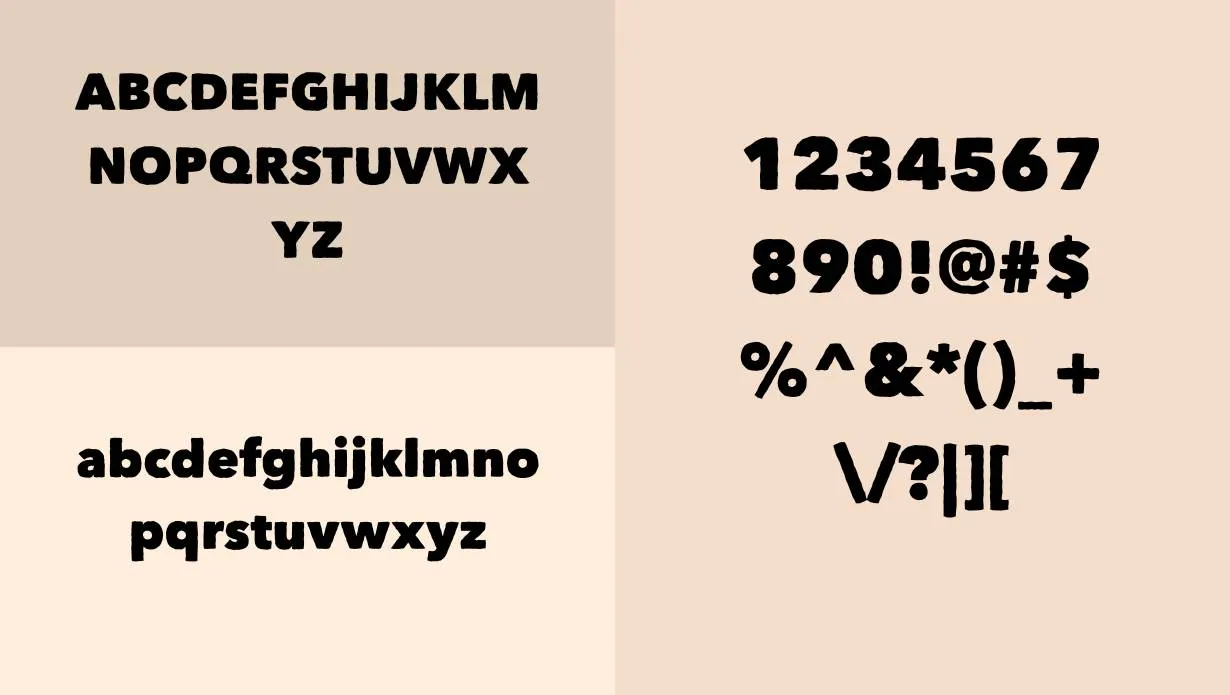
Matiz Font is a contemporary and versatile sans-serif typeface, suitable for a wide range of design applications.
Its clean lines and modern design make it ideal for branding, advertising, web design, and packaging. Matiz Font adds a sense of contemporary style and organization to your design projects.
| Name | Matiz Font |
| Designer | Cabbages & Kings |